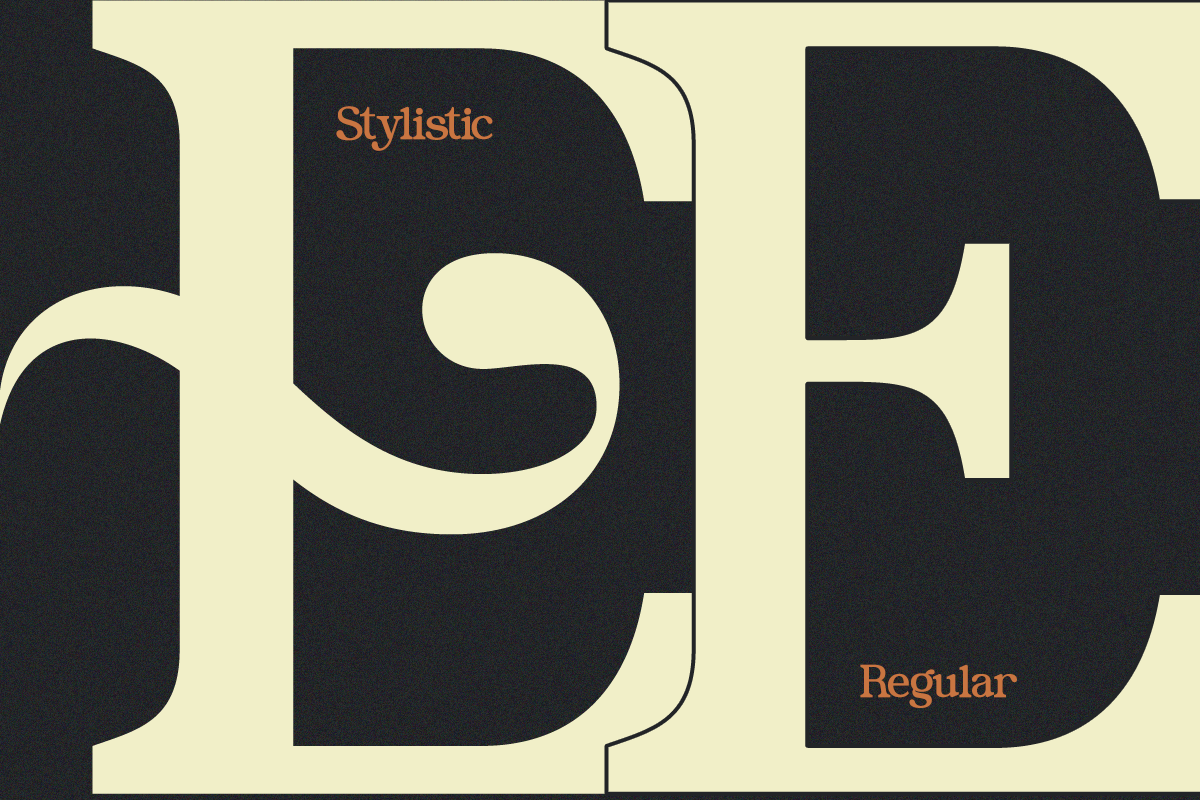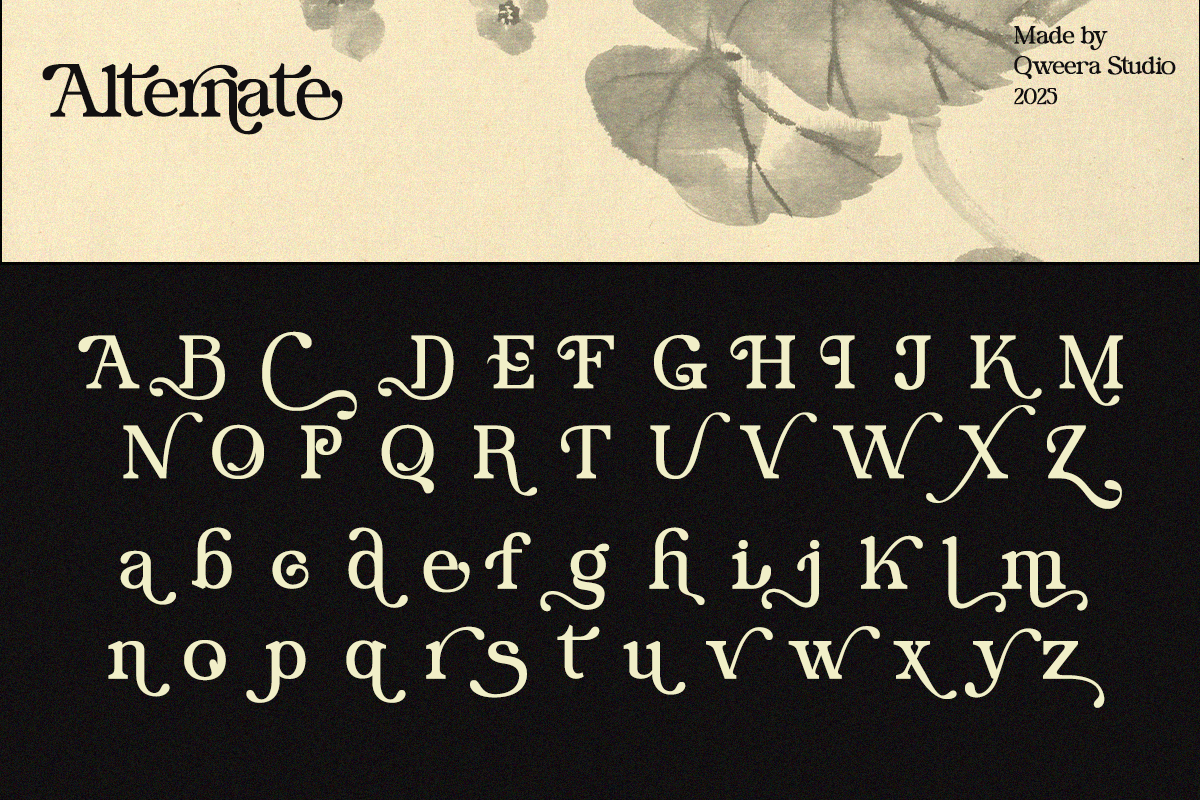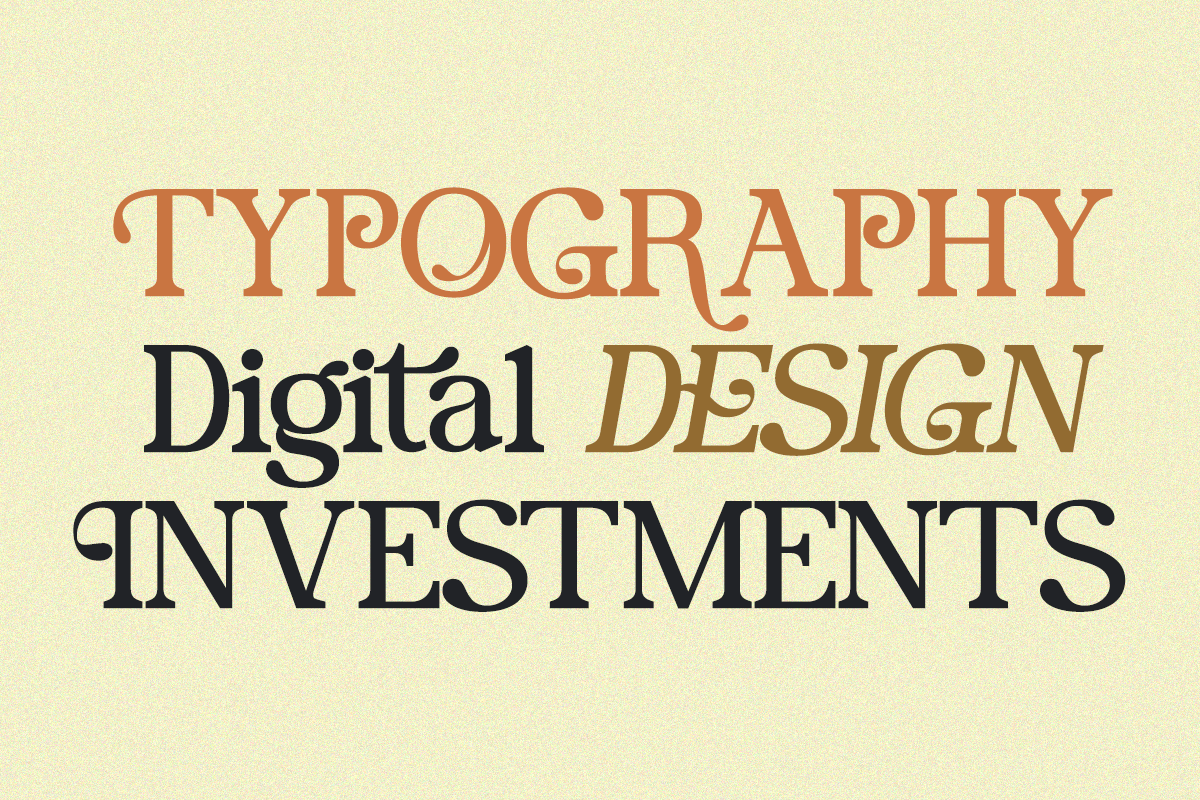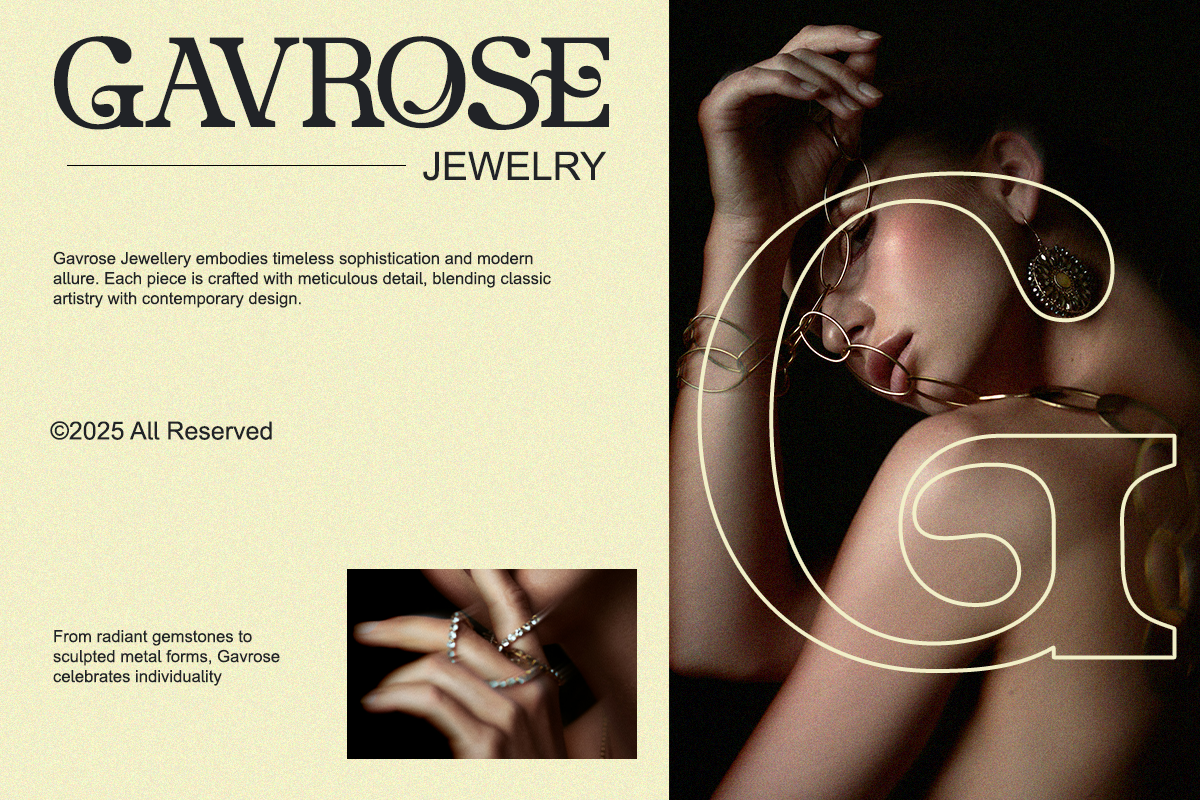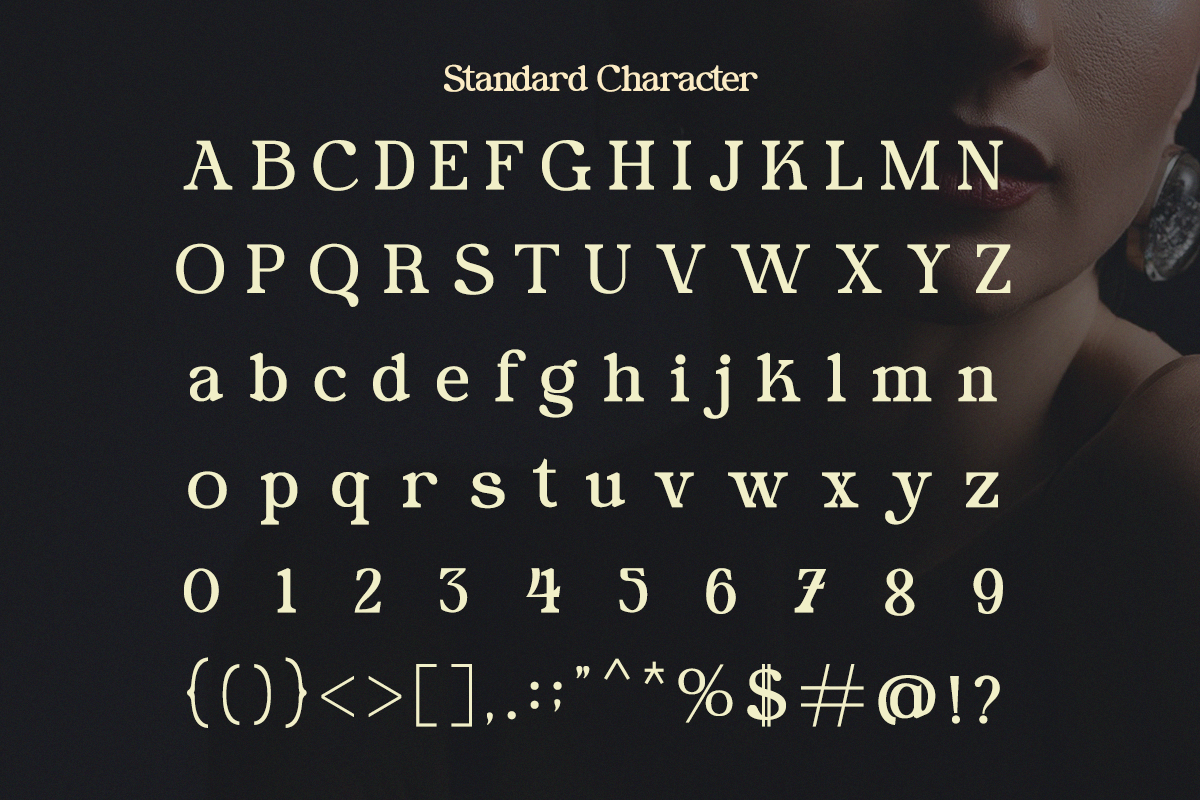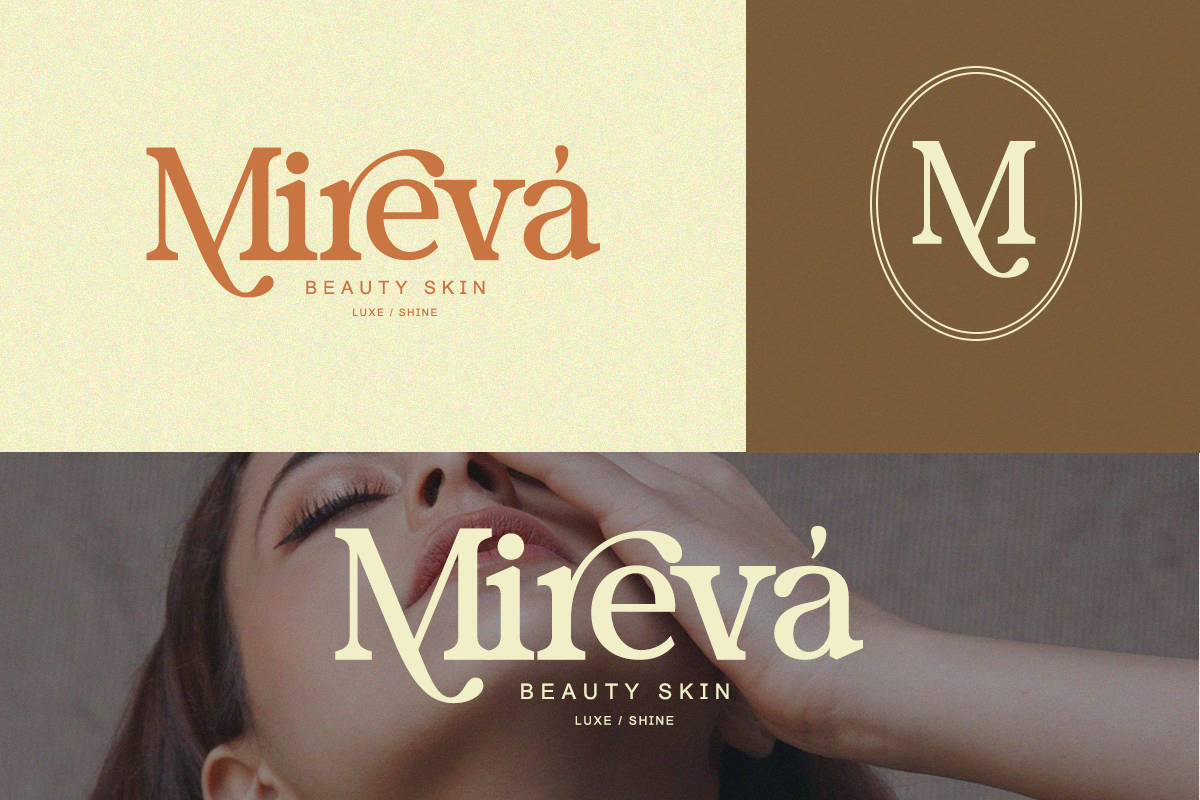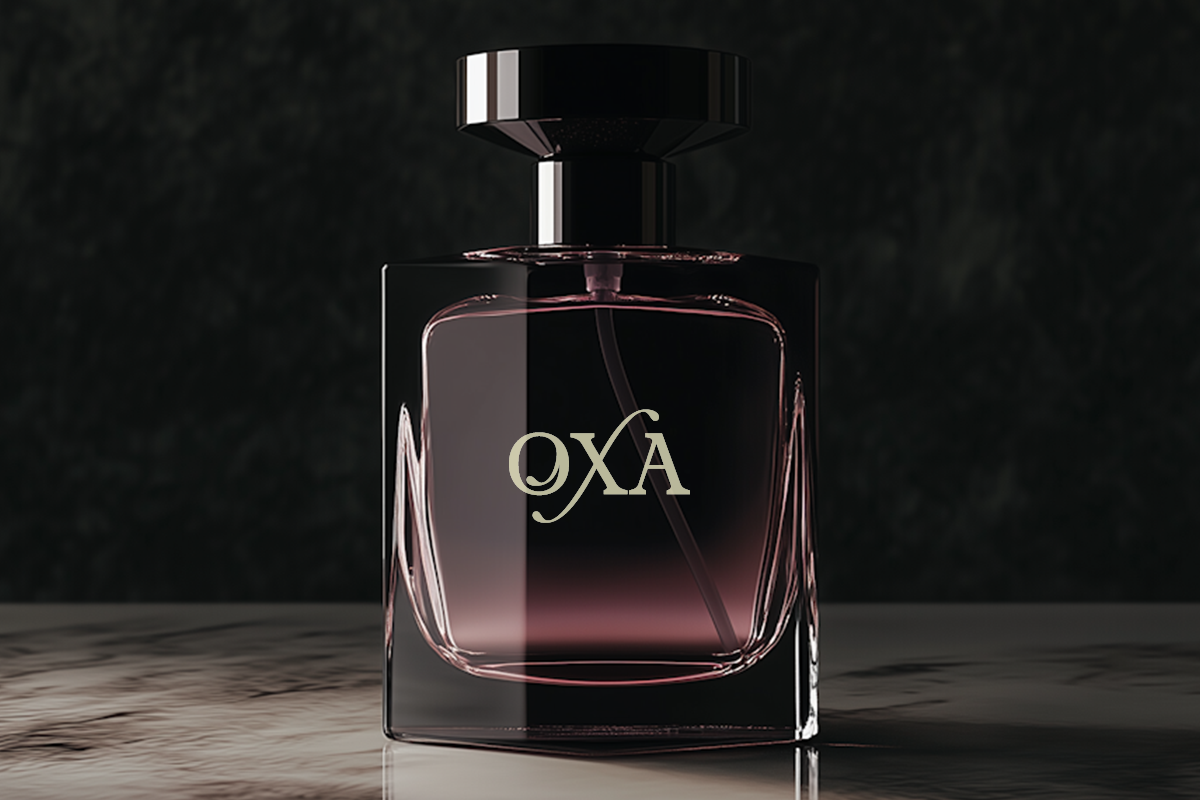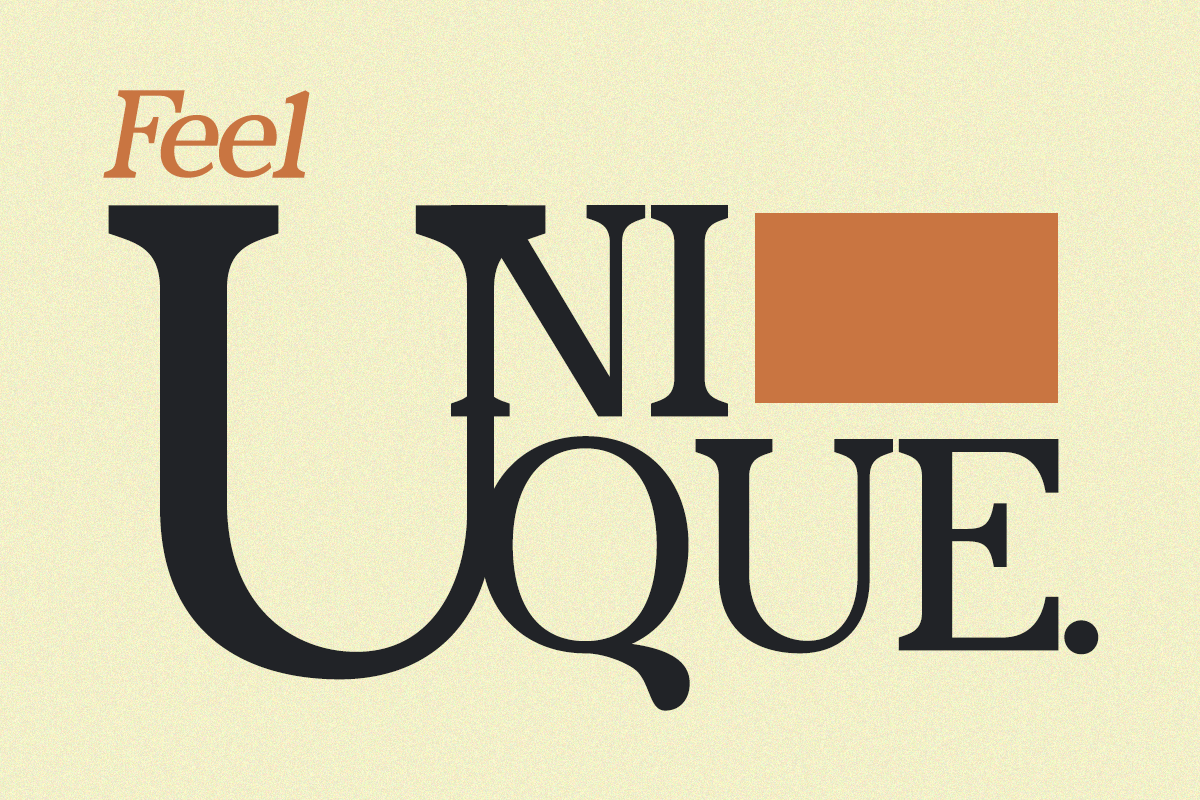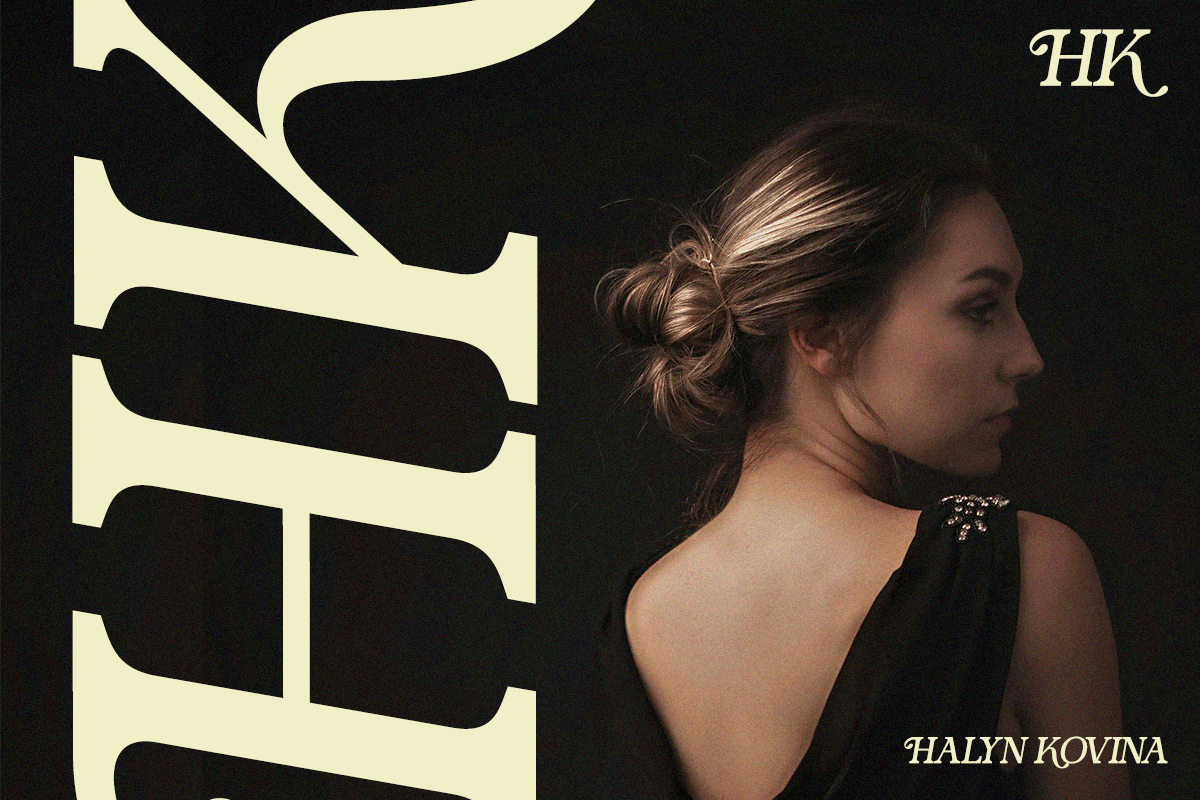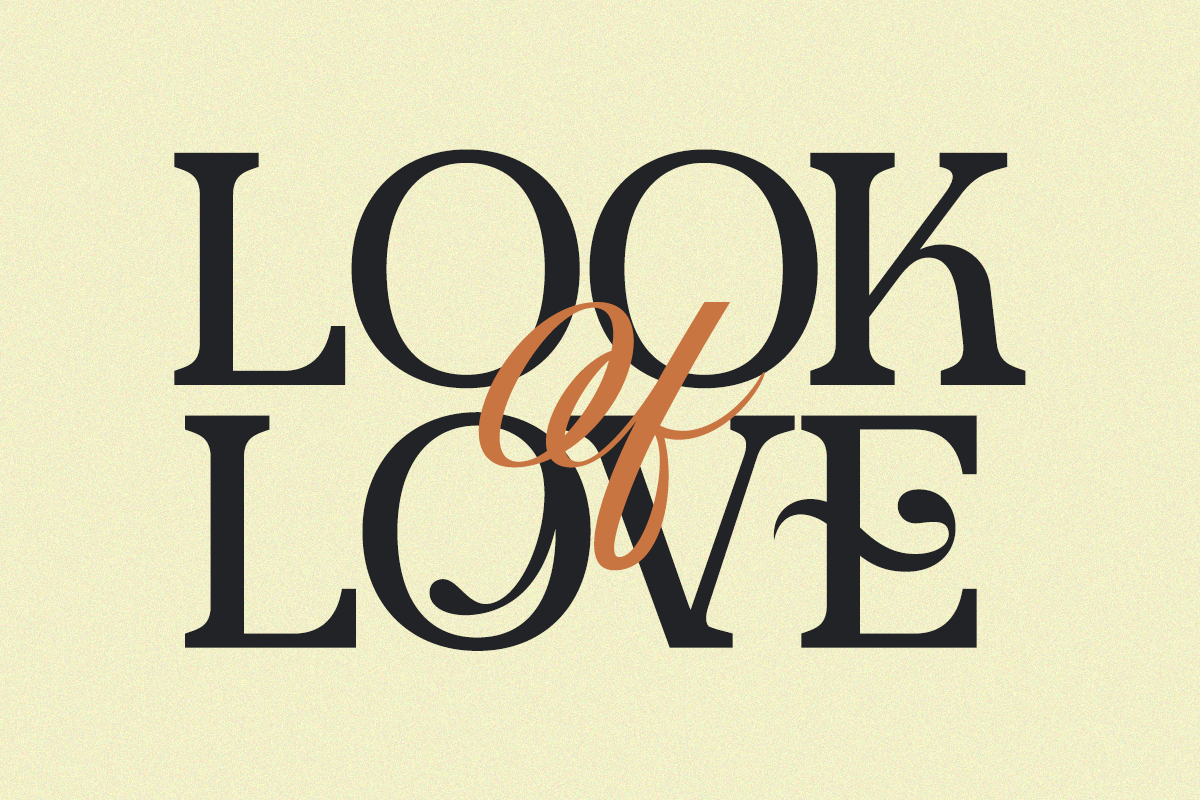
Catarsid - Retro Modern Serif
Catarsid is a retro-modern serif font that captures the soul of vintage typography with a fresh modern twist. Its bold contrasts and unique ligatures make it ideal for branding, posters, packaging, and editorial layouts. Designed for timeless sophistication, Catarsid elevates any project with nostalgic luxury and modern craftsmanship.
- Regular & Italic
Perfect For: Retro branding, vintage packaging, fashion editorials, and artistic design projects.